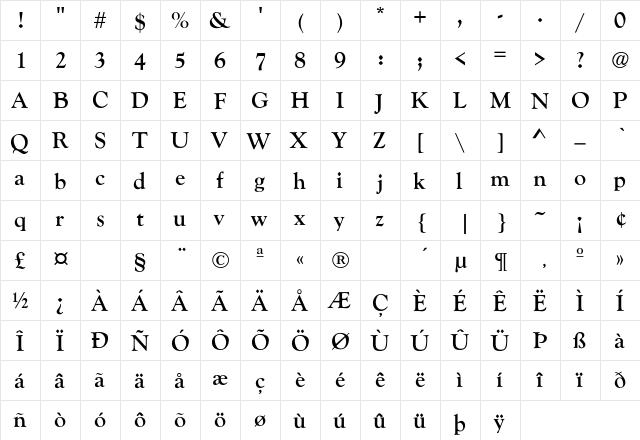
Singles Bold Regular
Design Context for Singles Bold Typeface
Singles Bold takes a measured approach to typography — its balanced proportions and neutral character make it a reliable workhorse for both digital and print work. The heavy weight commands attention and anchors typographic hierarchies.